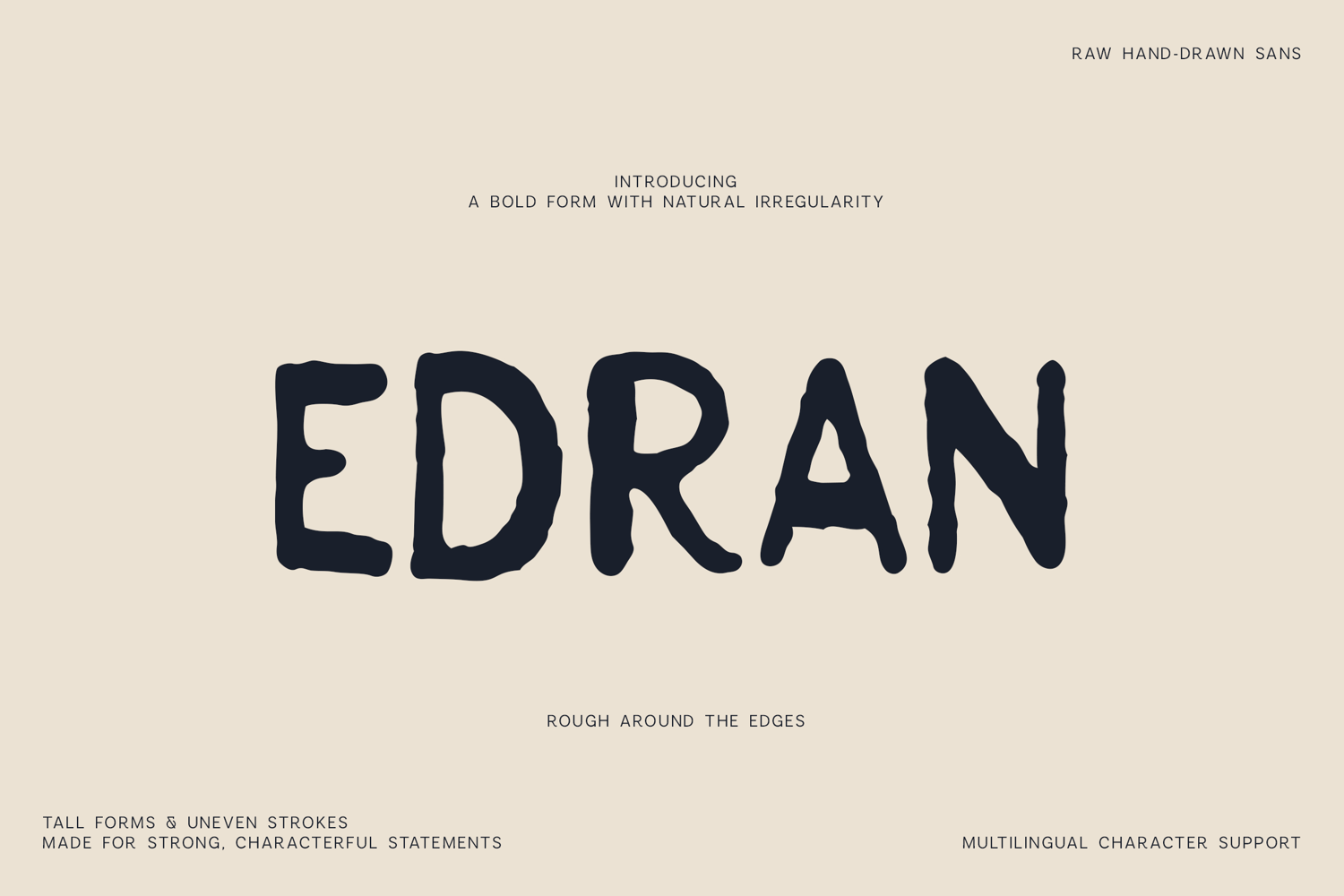
Modern Heritage Minimalist Sans Serif Font
Meet Edran, a raw hand-drawn sans serif font with tall letterforms, uneven strokes, and distinctive handmade character.
Its deliberately irregular shapes create a relaxed but confident visual voice, making it a strong choice for projects that need typography with warmth, authenticity, and personality.
Edran works beautifully for logos, brand identities, packaging, posters, apparel, merchandise, food and beverage branding, product labels, book covers, editorial graphics, invitations, social media content, and advertising.
The font includes uppercase and lowercase characters, numerals, punctuation, symbols, and extended multilingual support.